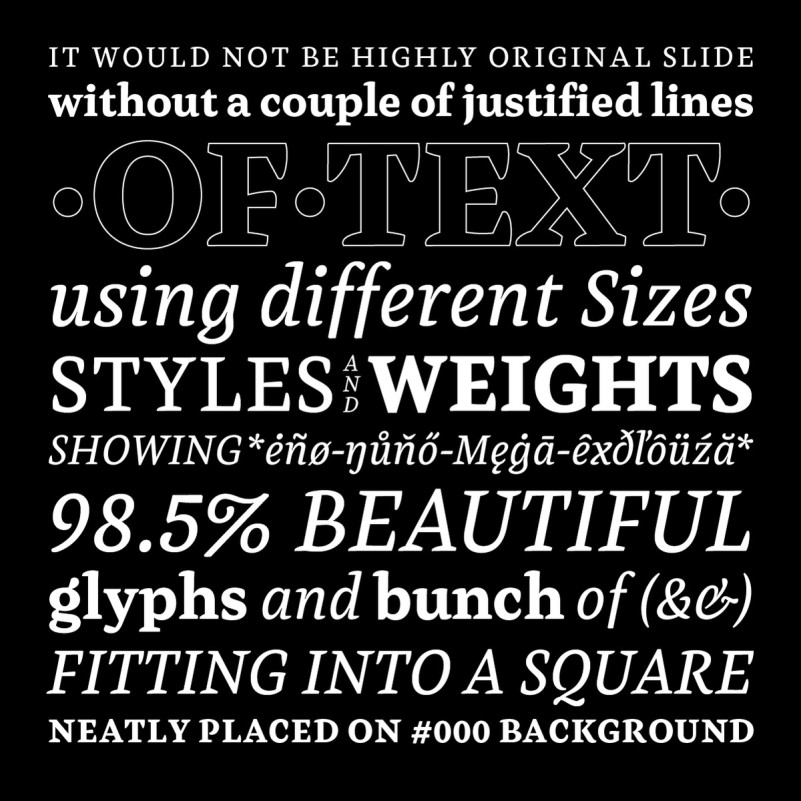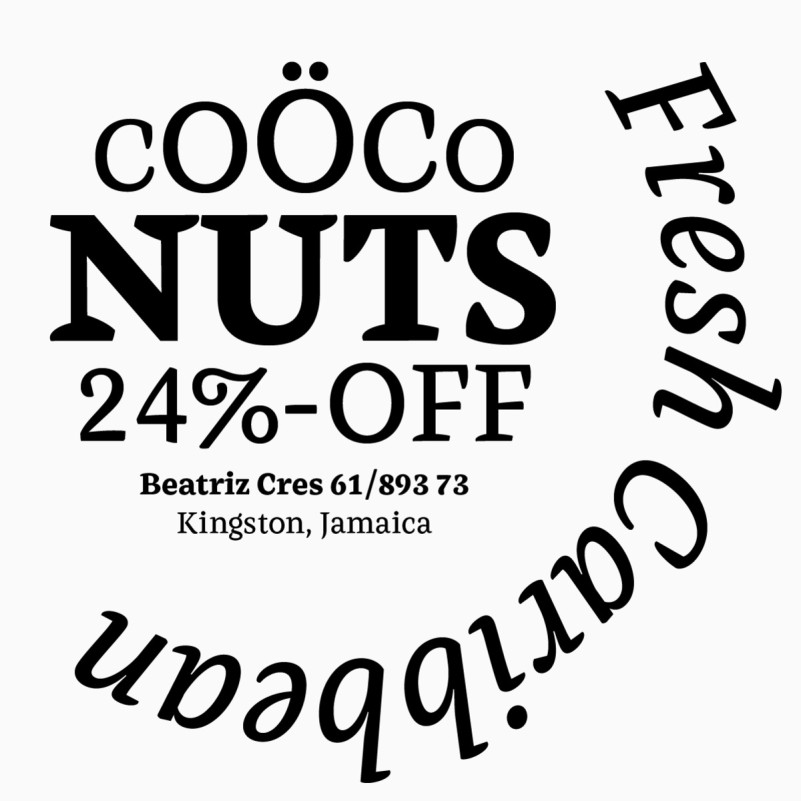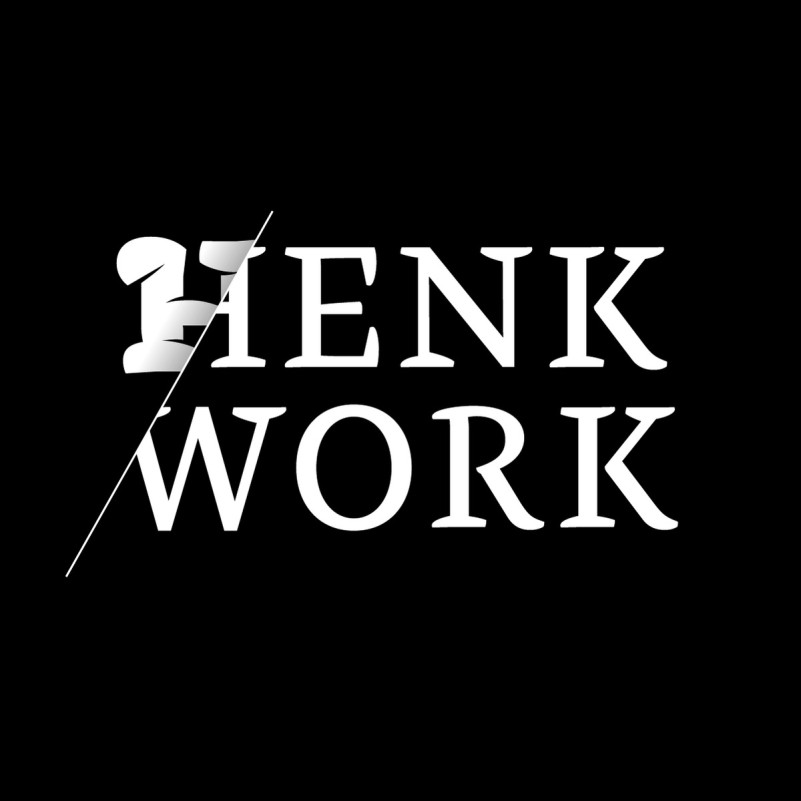
Henk Work Font
Introducing Henk Work Font, Henk began during my studies at the Type Media masters course at KABK as my final project. Henk has been planned as a family of at least 6 styles with two different personalities. Henk Out and Henk Work.
Henk Work is a smart and hardworking gentleman typeface designed for the writing of the long legal texts which often contain a lot of abbreviations and numbers in them.